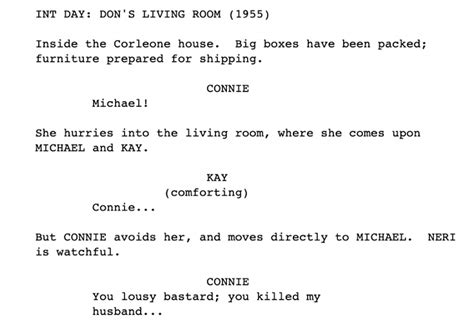
What Font Do They Use For Scripts. Classic script fonts are an excellent choice for scriptwriting. There are several variations of courier:
As the guideline is rigid, the answer is straightforward. Classic script fonts are an excellent choice for scriptwriting. It’s a monospaced font that ensures consistent spacing and formatting. Courier is used as the standard screenplay font because it creates a page to screen ratio. Everything you need to know. Web the screenplay font used to write movie scripts is courier 12pt. Traditionally, the font used for film scripts is courier. There are several variations of courier:
Web the screenplay font used to write movie scripts is courier 12pt. It’s a monospaced font that ensures consistent spacing and formatting. Courier is used as the standard screenplay font because it creates a page to screen ratio. Traditionally, the font used for film scripts is courier. Web the screenplay font used to write movie scripts is courier 12pt. As the guideline is rigid, the answer is straightforward. Everything you need to know. Classic script fonts are an excellent choice for scriptwriting. There are several variations of courier: